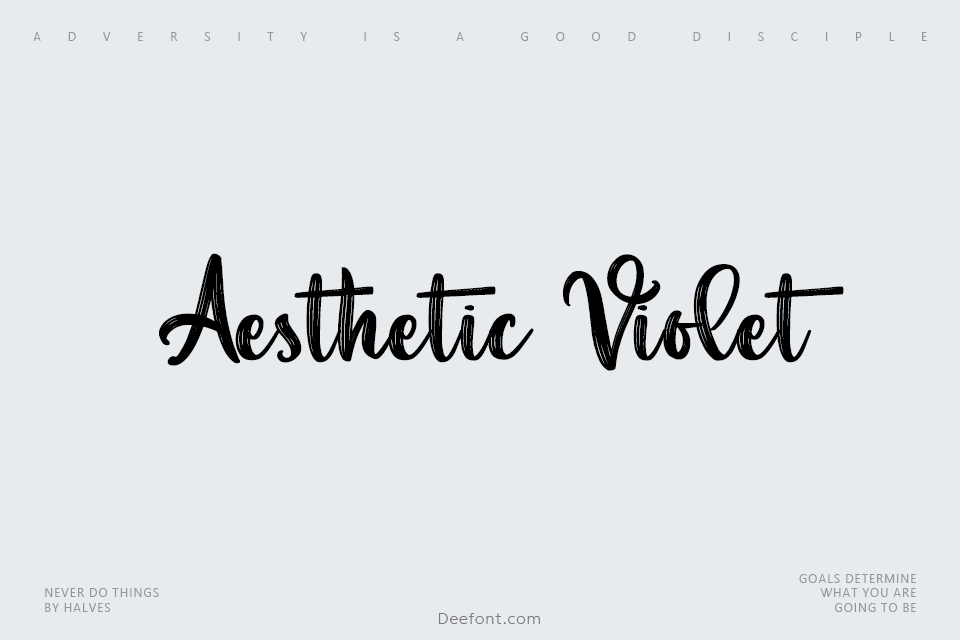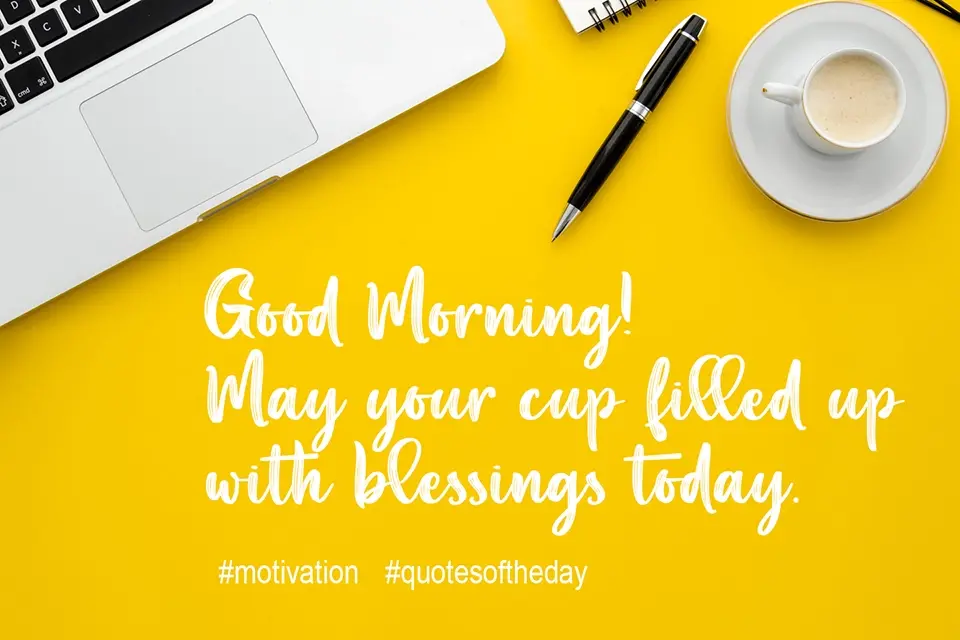
Aesthetic Violet Font
Aesthetic Violet is an elegant handbrush script font featuring natural flowing strokes with delicate ending swashes. This versatile typeface excels in creating sophisticated typography for quotes, cards, banners, and social media content. Perfect for designs requiring a personal, artistic touch with a contemporary aesthetic appeal.